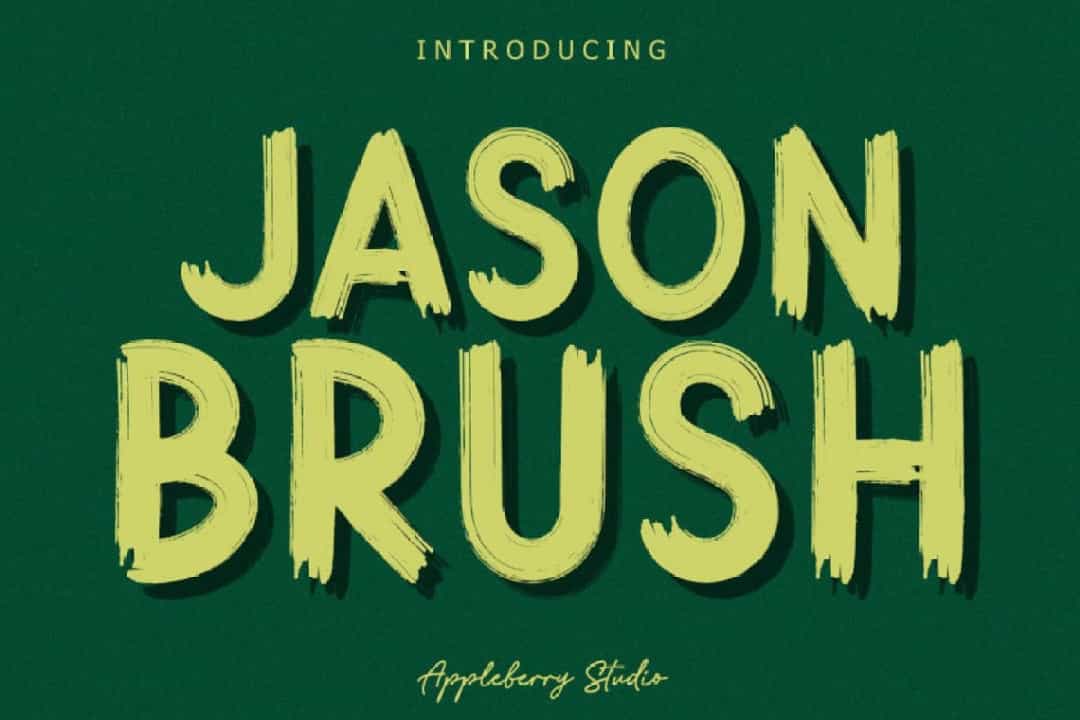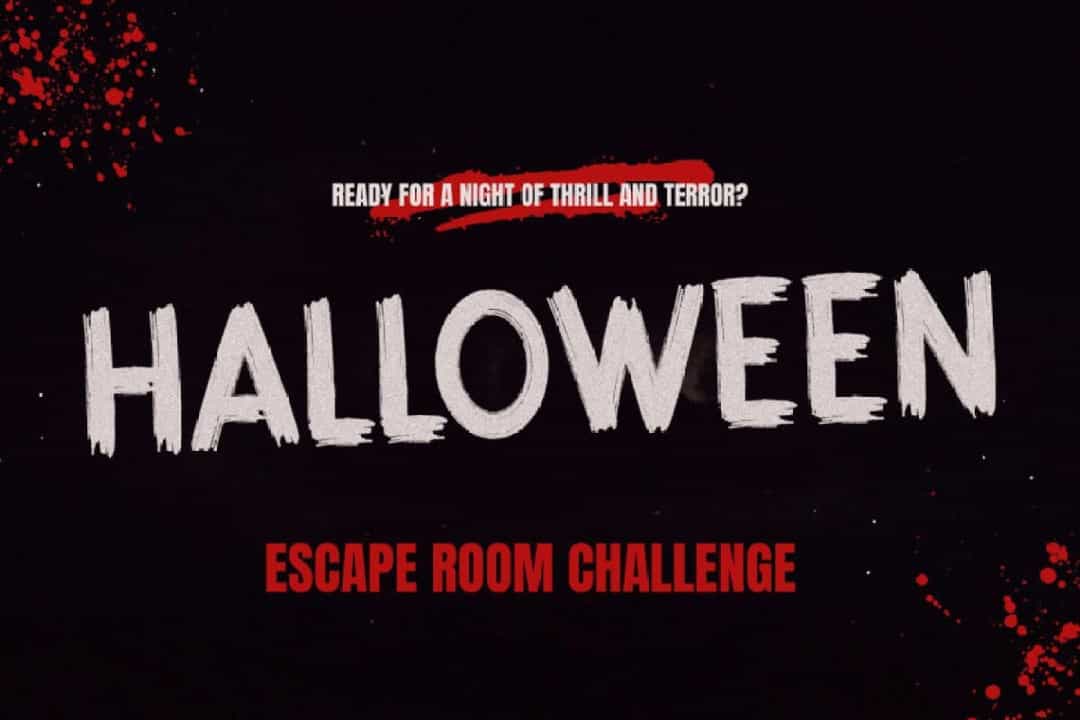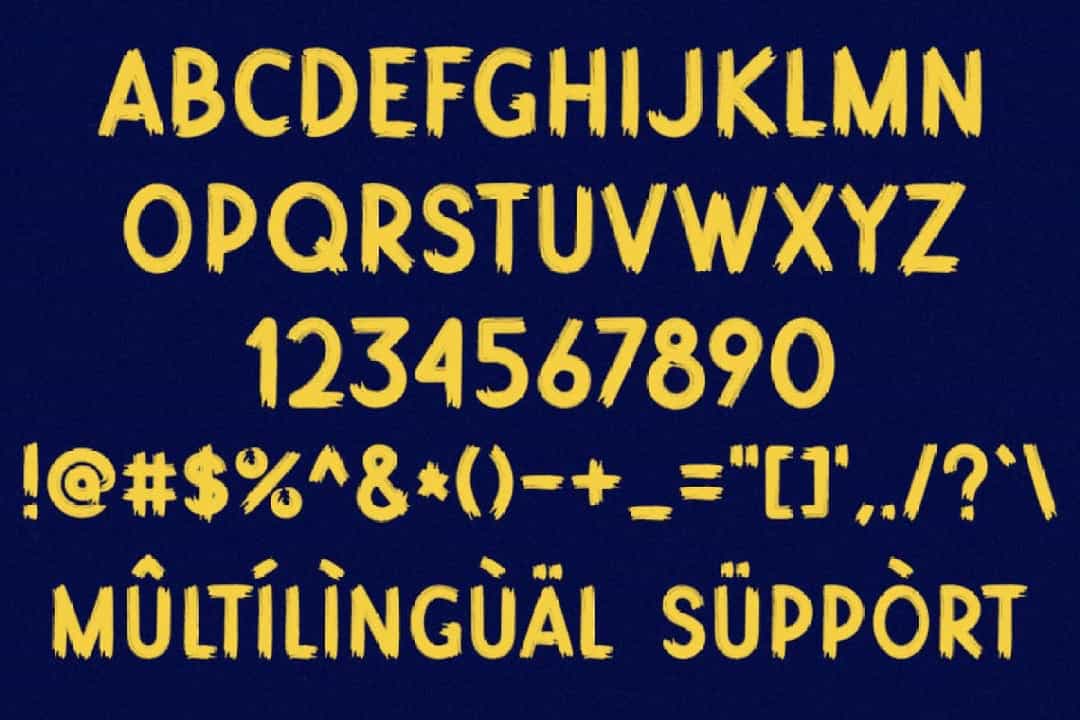
Discover Jason Brush Font, part of the Brush Display collection—a versatile and unique font perfect for adding a personal touch to your projects. Download it for free and enjoy crafting designs with style, from invitations to social media posts. This font is available exclusively for personal use, giving you the freedom to create without limits. Unlock your creativity with Jason Brush Font today!
Jason Brush is an incredible brush-style display font which can be used for creating cartoon designs, children’s game titles, quotes brands and book covers, posters and any other projects that require some lightheartedness – it makes an excellent addition to any creative arsenal!